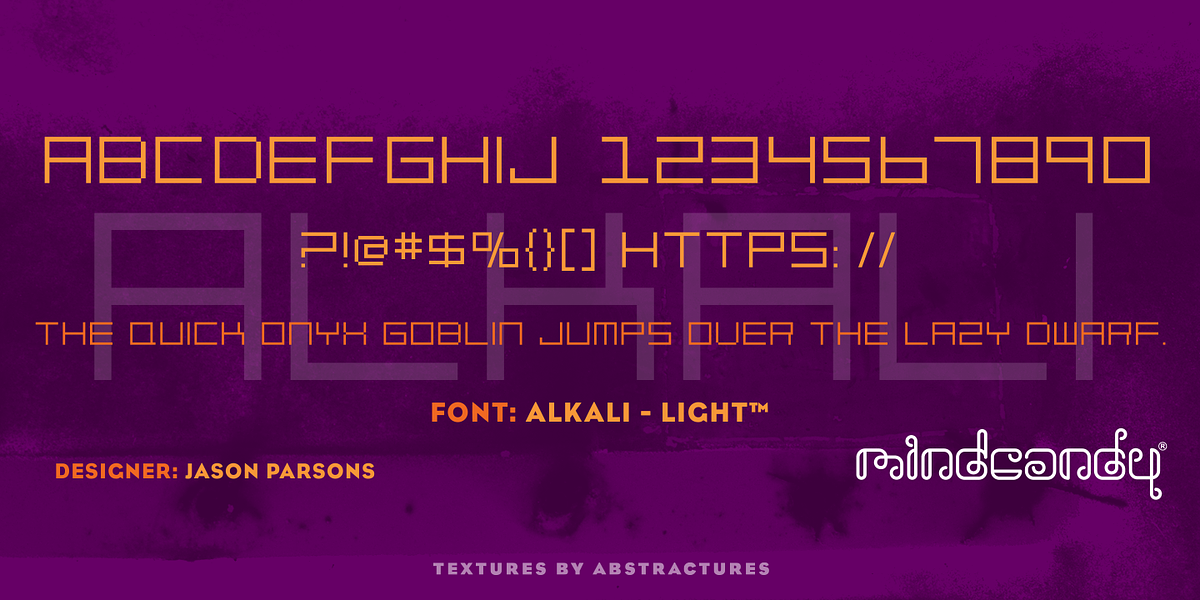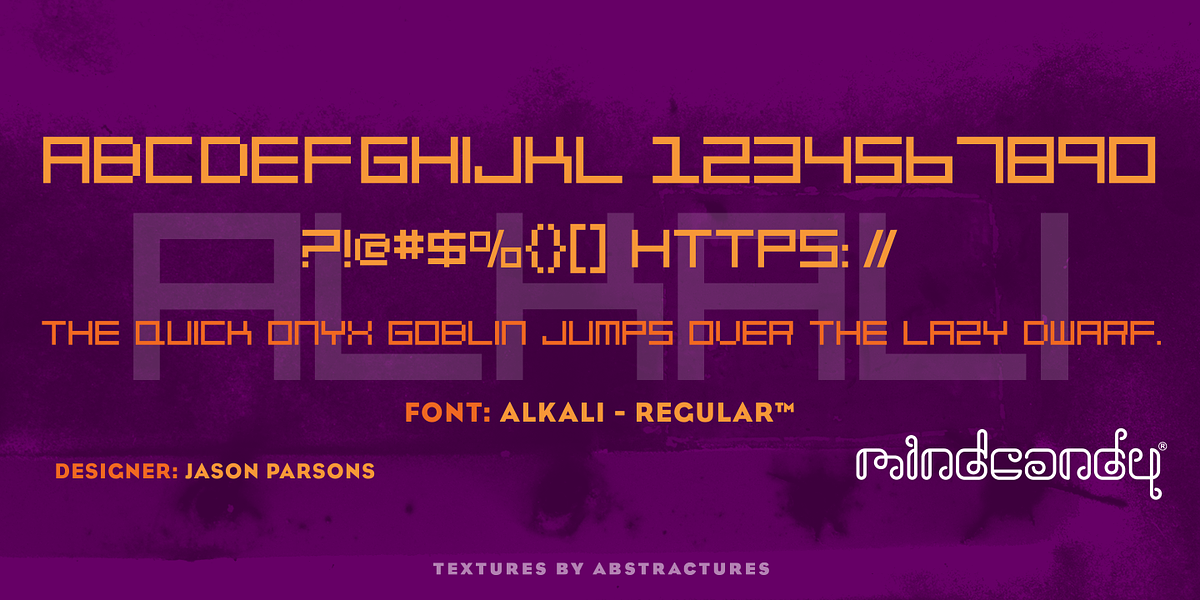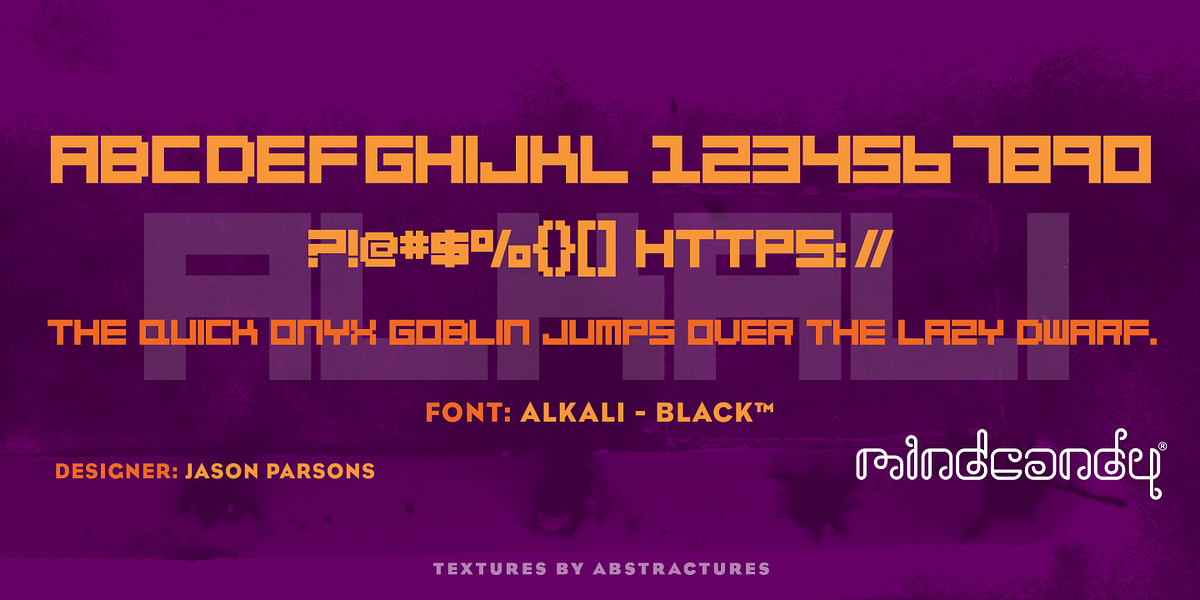
Alkali™
Alkali™ is a modern geometric sans-serif font designed by Jason Parsons. It comes in three weights: light, regular, and black, making it suitable for both headlines and body copy. The font family is known for its versatility and readability.